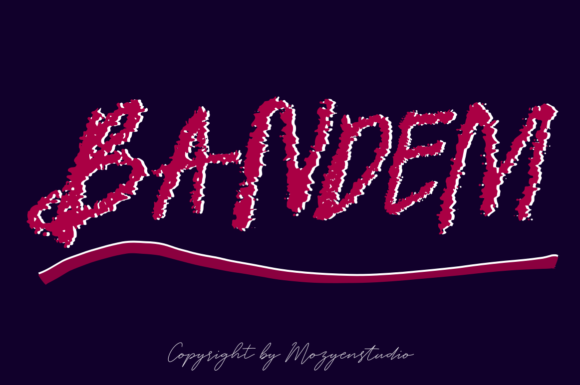
Introducing Bandem Font, the enchanting script font that will ignite your creativity and captivate your audience.
Immerse yourself in the world of Bandem, where elegance and sophistication collide. This captivating script font dances across the screen with its graceful curves and flowing lines, creating an alluring and unforgettable impression.
Whether you're crafting wedding invitations that evoke timeless romance or creating captivating marketing materials that demand attention, Bandem Font is your perfect companion. Its versatility knows no bounds, allowing you to weave your words into a masterpiece that resonates with your audience.
With Bandem Font, you'll discover a world of possibilities. Its whimsical charm will add a touch of magic to your personal notes, while its bold and expressive nature will make your business communications stand out from the crowd.
But Bandem Font is more than just a tool for communication; it's an expression of your creativity and a reflection of your unique style. Its versatile nature empowers you to experiment with countless design possibilities, ensuring that your creations always leave a lasting impact.